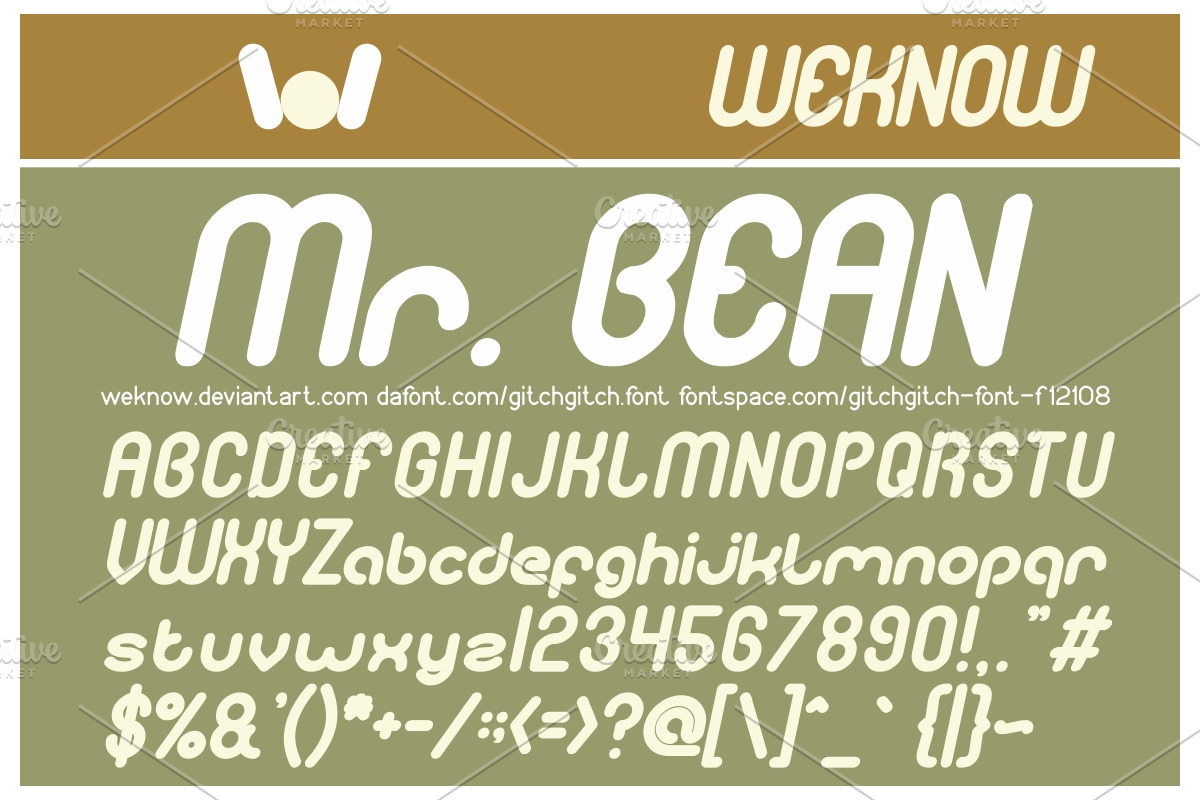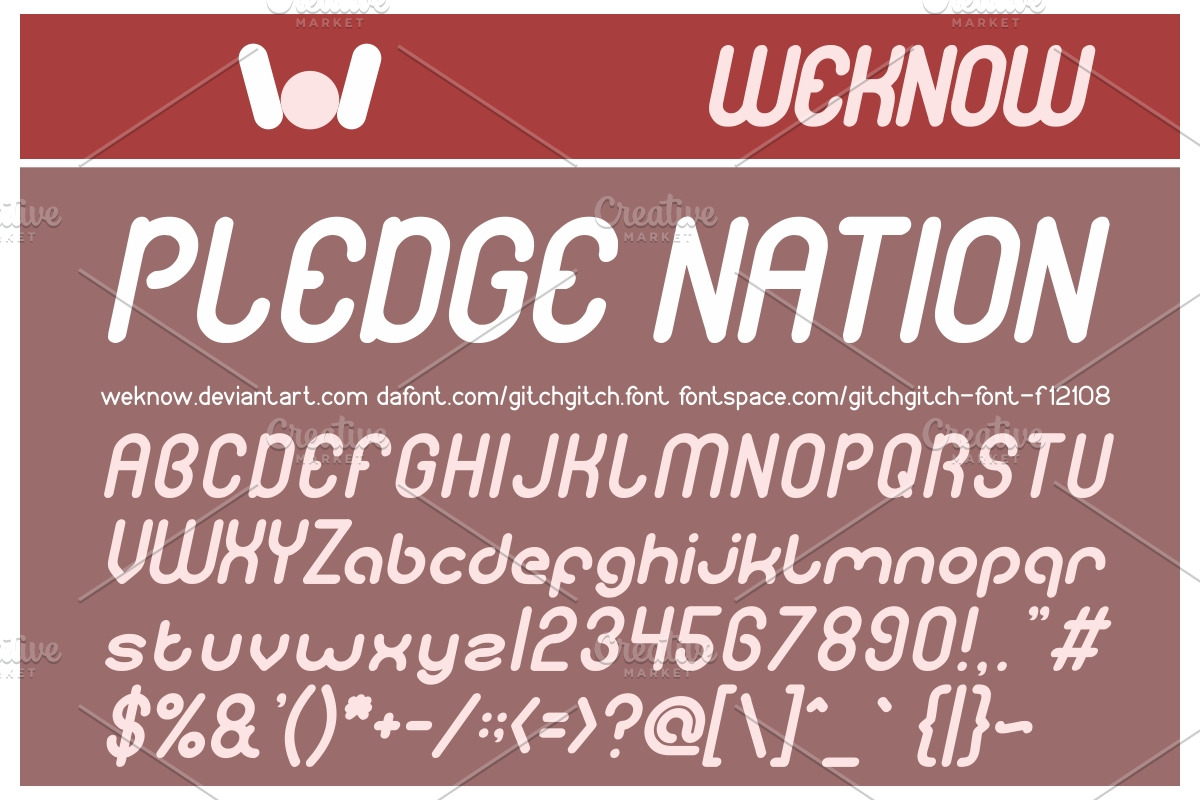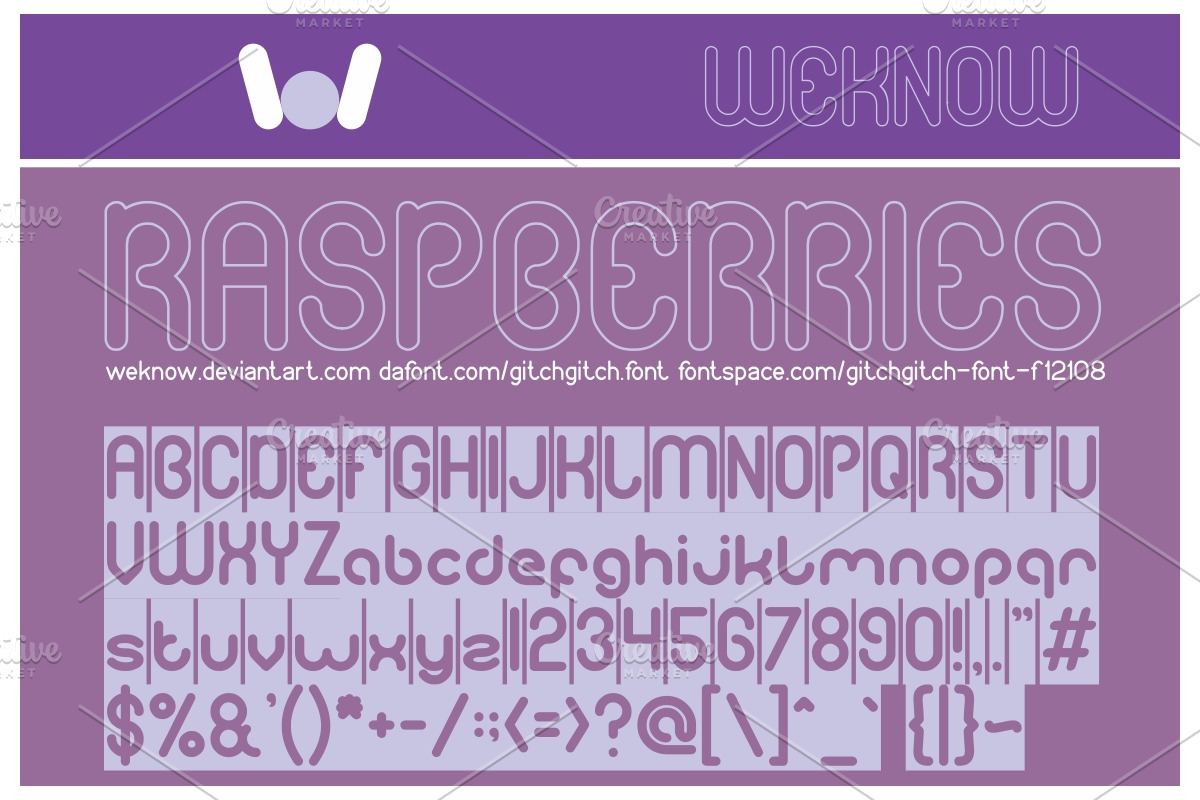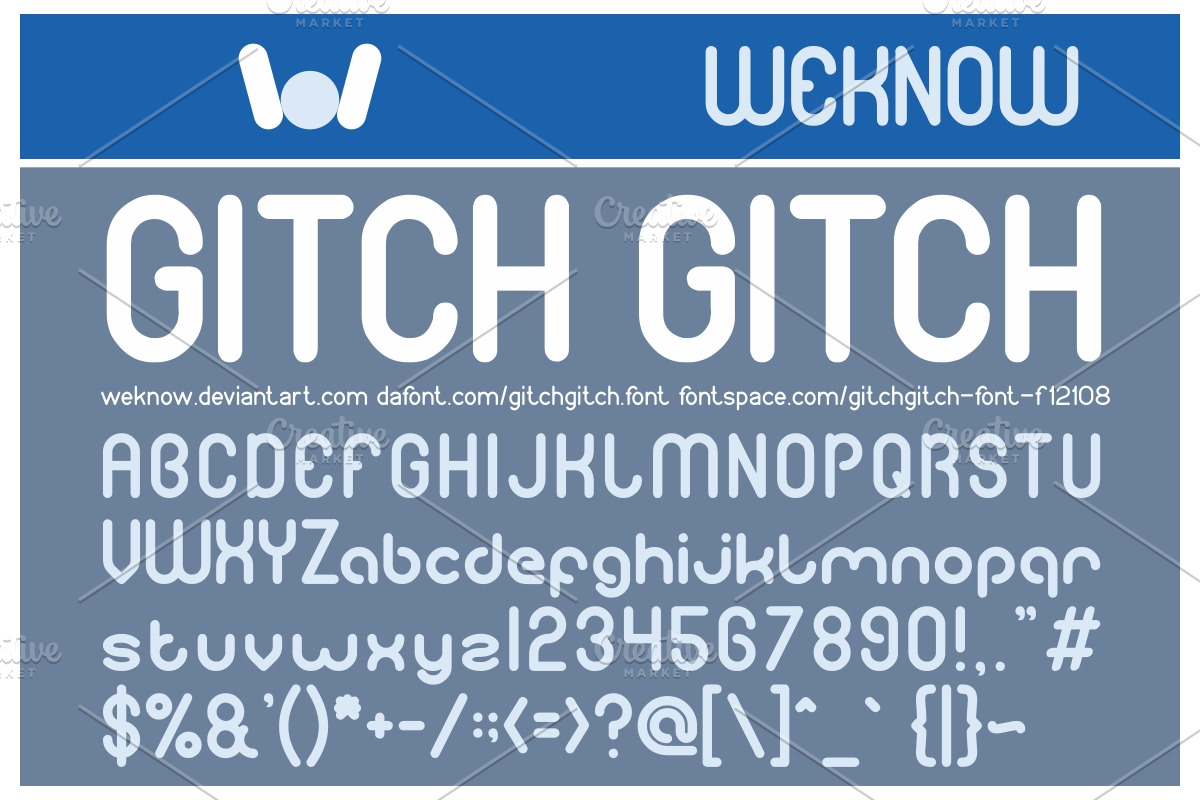
gitch gitch font
available style: gitchgitch-italic, gitchgitch-Bold, gitchgitch-Bold-Italic, gitchgitch-Hollow, gitchgitch-Hollow-inverse, gitchgitch-inverse
Why gitch gitch font is worth a look
gitch gitch font by weknow fits naturally into Branding, posters, packaging, typography.